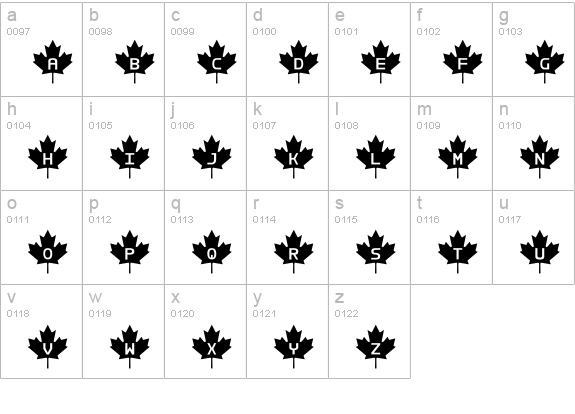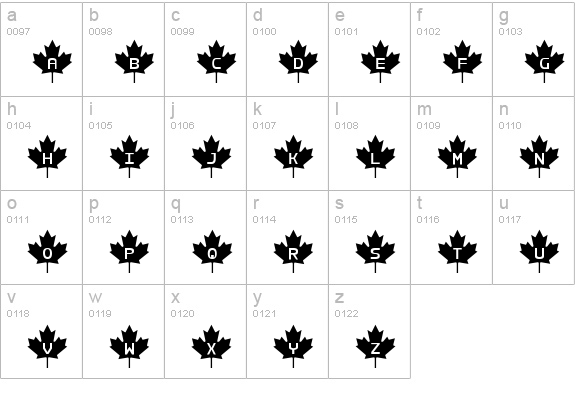
RCMP Font Details
Introducing the RCMP font, a captivating and versatile typeface that combines elegance with a touch of authority. This font is the perfect choice for projects that require a professional and commanding presence. With its clean lines and impeccable craftsmanship, the RCMP font is sure to make a lasting impression. One of the most remarkable features of the RCMP font is that it is freely available to download at FontsMarket.com. This means that you can easily access this stunning typeface without any cost, making it an excellent option for designers, writers, and anyone in need of a high-quality font without breaking the bank. Whether you are creating a logo for a law enforcement agency, designing a sleek and modern website, or crafting eye-catching promotional materials, the RCMP font is your go-to choice. Its versatility allows it to adapt effortlessly to various design styles, making it suitable for both print and digital applications. The RCMP font boasts a wide range of weights and styles, giving you the freedom to experiment and find the perfect fit for your project. From bold and impactful headlines to elegant and legible body text, this font has got you covered. With its timeless appeal and extensive character set, the RCMP font ensures that your message is delivered with authority and clarity. Its attention to detail and meticulous design make it an excellent choice for both professional and personal projects. So why wait? Download the RCMP font for free today at FontsMarket.com and elevate your design game to new heights. Embrace the power of this remarkable typeface and create stunning visuals that leave a lasting impression.